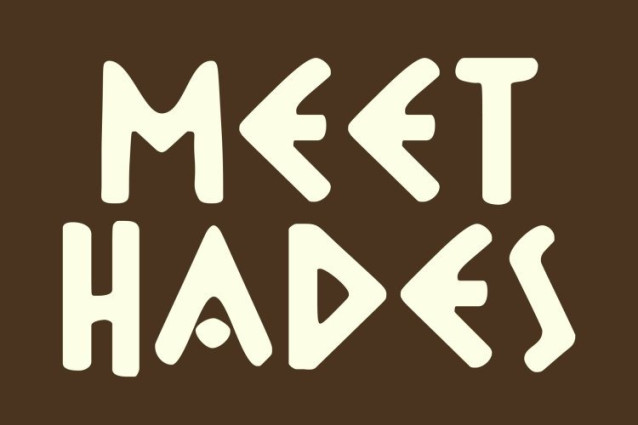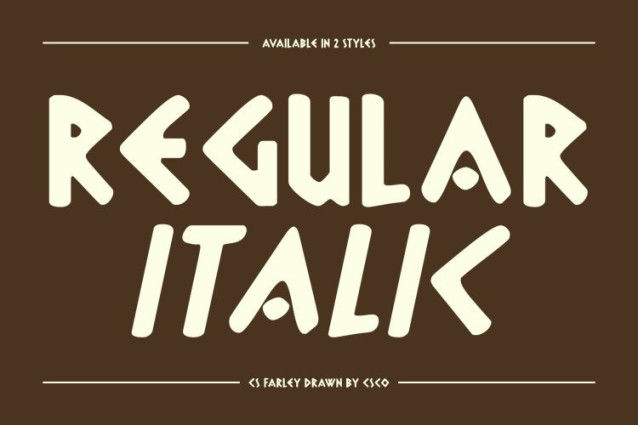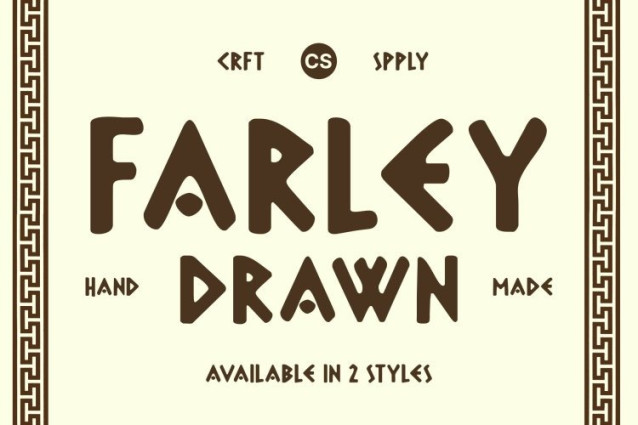
CS Farley Drawn Font
CS Farley Drawn Font – This is a Greek-inspired display font crafted for creatives who want to merge ancient elegance with contemporary aesthetics. Drawing from the architectural strength of Greek columns, classical inscriptions, and mythological artistry, it brings a timeless visual identity into modern design. Each letterform reflects the heritage, balance, and harmony found in classical Greek design.
Geometric Shapes for Monumental and Iconic Presence
The font features strong geometric structures that evoke the monumental style of ancient temples and carved stone lettering. Its bold proportions and sculptural shapes create an iconic visual impact, making it perfect for titles, logos, or statements that need to look firm, legendary, and unmistakably authoritative.
Hand-Drawn Texture for Unique Character and Warmth
To enhance its classical appeal, this font includes a handcrafted drawn texture, giving every character an organic, artistic quality. This subtle handmade detail adds warmth and uniqueness, transforming its geometric shapes into something more tactile and expressive like hand carved inscriptions with a modern twist.
Perfect for Fashion, Posters, Editorials, and Cultural Branding
This font is an ideal choice for designers working in fashion, luxury branding, poster design, editorial layouts, or product packaging. Its fusion of ancient inspiration and modern refinement creates a striking visual identity that feels cultured, stylish, and unforgettable.